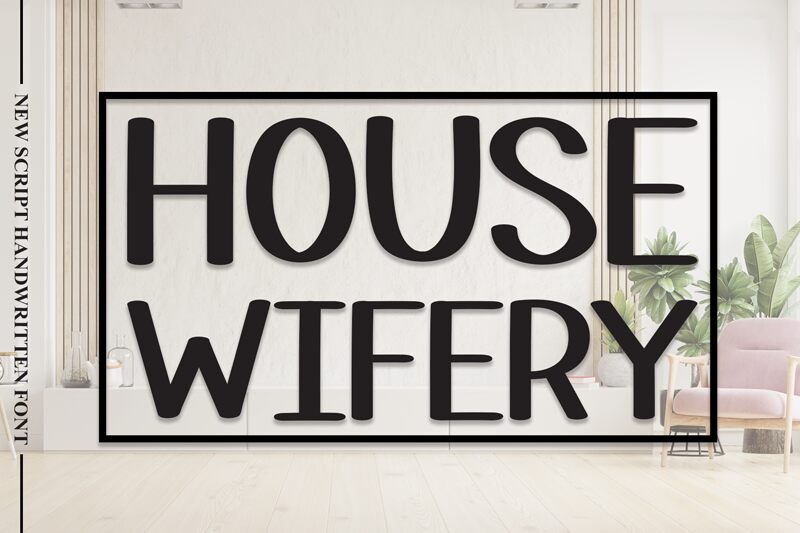
House Wifery
House Wifery, a delightful handwritten font by Scratchones, brings an air of elegance and charm to any project.
With its semi-light weight, this allcaps typeface adds a touch of sophistication to wedding invitations, greeting cards, and feminine branding. Its graceful curves and precise strokes make House Wifery perfect for logo designs seeking a balance between playfulness and refinement. From blog headers to product packaging, this versatile font exudes warmth and friendliness while maintaining an air of professionalism.
Let House Wifery accompany your creative endeavors with its distinctive handwritten allure.